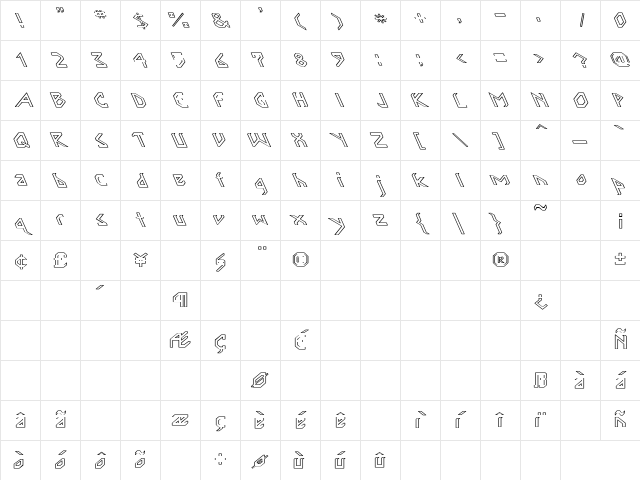
Complete Inka Bod Large Hollow Leftie Regular glyph index. Displaying only characters natively supported by Inka Bod Large Hollow Leftie Regular font.
Inka Bod Large Hollow Leftie is a composed and adaptable typeface that performs quietly and consistently across a wide range of design contexts.